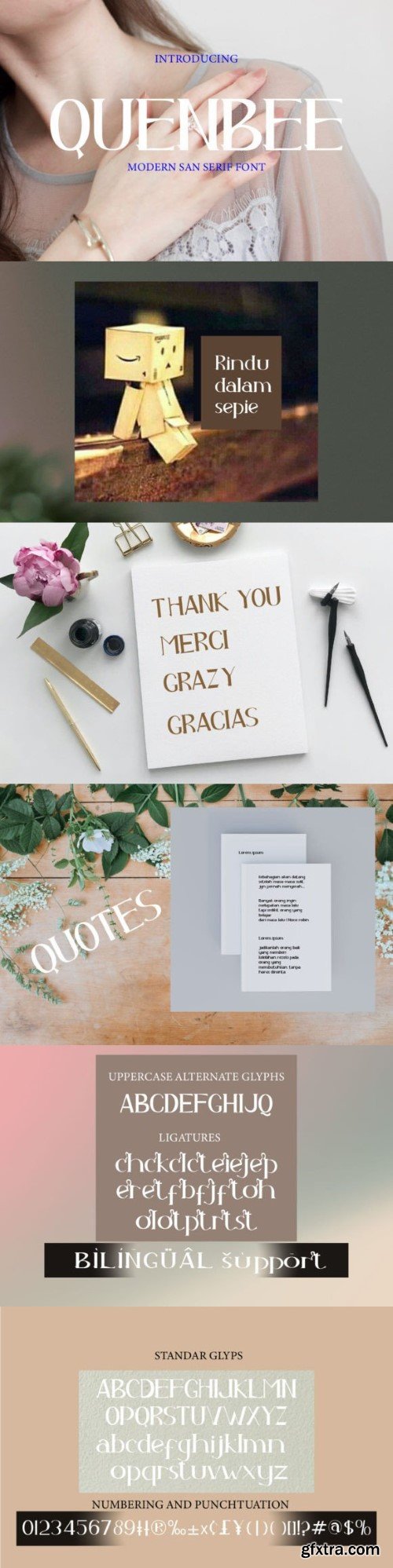
Introduction Quenbee font. This is a modern serin font, inspired by a festive and fun serif font, best used as a display for headings, logos, branding, magazines, book cover, childrens event, comic, product packaging, scondary teks, brochures, social media post and invitations project.